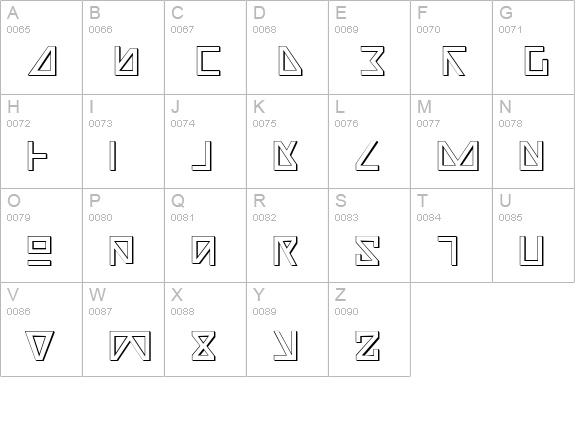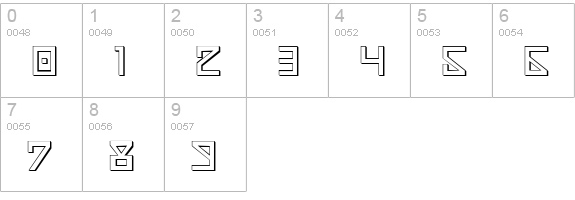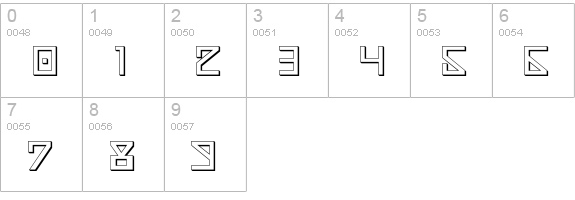
Nick Turbo 3D Font Details
Introducing Nick Turbo 3D font, a dynamic and eye-catching typeface that will add a modern twist to your designs. This font features bold 3D lettering with a sleek and futuristic style, perfect for making your projects stand out. Not only does Nick Turbo 3D font offer a striking visual impact, but it also provides versatility for a wide range of design applications. Whether you're creating posters, logos, or branding materials, this font will bring a unique and edgy vibe to your work. And the best part? Nick Turbo 3D font is completely free for personal and commercial use. You can easily download this font at FontsMarket.com and start incorporating its bold aesthetic into your projects today. Don't miss out on this opportunity to elevate your designs with Nick Turbo 3D font!